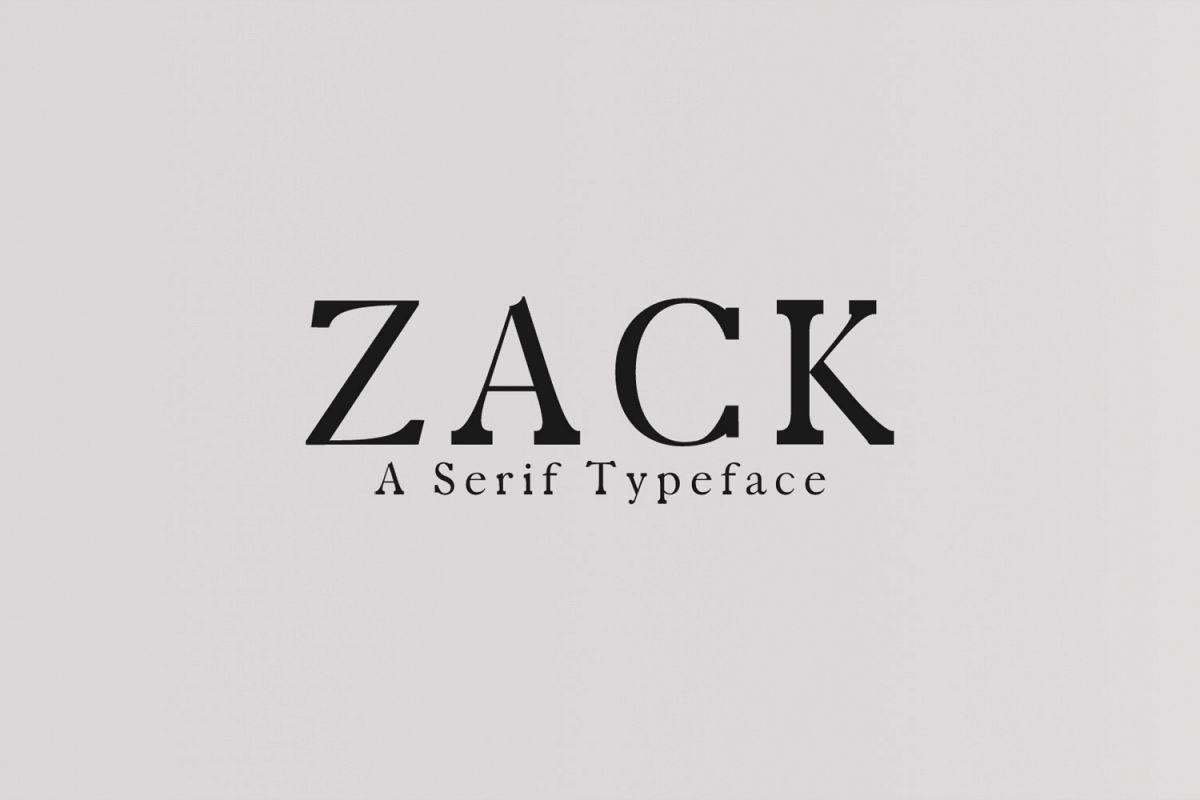
Zack Serif Typeface
Zack Serif Font is a set of 4 weights and it is good for making creative displays and it has art-deco touch. It’s a lovely and unique serif font in our store, allowing you to make each word look completely stylish! It Suits best for modern / clean designs, logos, headlines, banners and templates etc. It looks gorgeous in all caps with a wide-set spacing if you want to try a classy look, or beautiful on its own in capital and lowercase letters for something completely timeless.Included Features:
• Font Weight: Light, Thin, Regular, Black
• Extras: Uppercase Multilingual Letters, Lowercase Multilingual Letters, Numbers & Punctuation + Alternatives.
Zack Font Features:
• Uppercase Multilingual Letters
• Lowercase Multilingual Letters
• Alternative